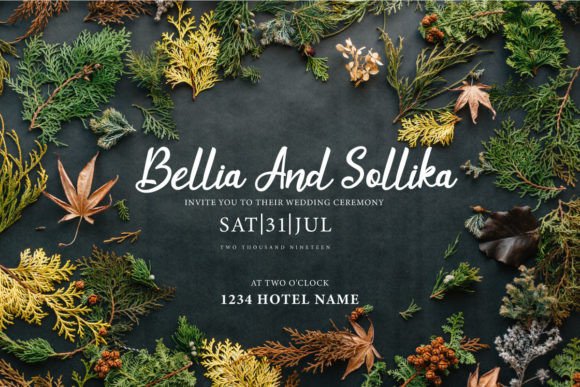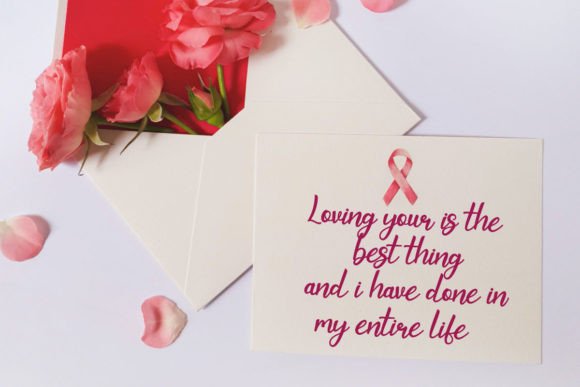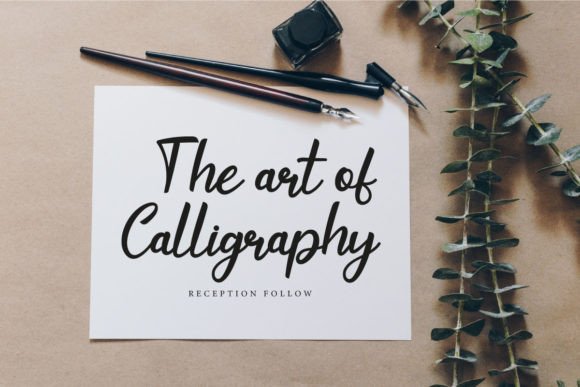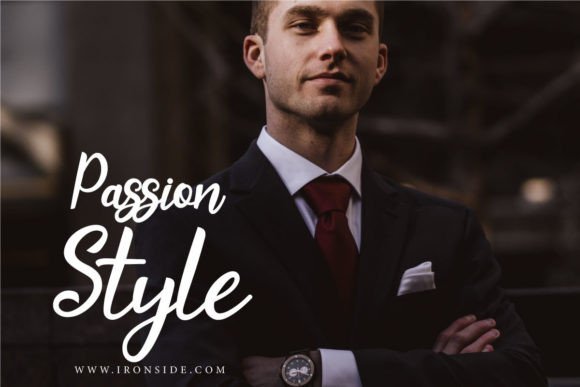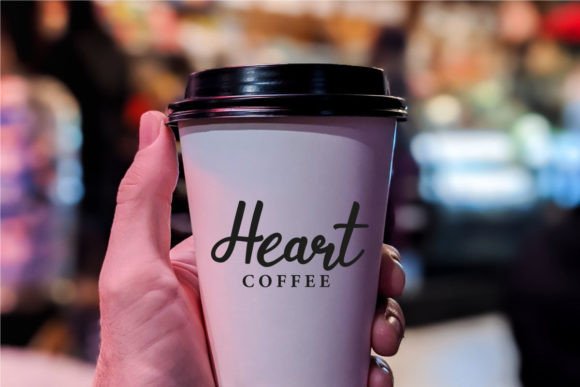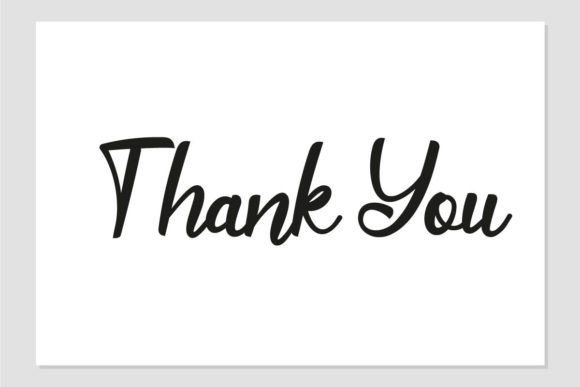
The Perfect Font for Creative Projects: A Deep Dive into Father Font
I’ll never forget the time I was working on a wedding invitation project, and my client asked for a font that was both elegant and playful. I scoured the internet, trying out font after font, but nothing seemed quite right. That was until I stumbled upon Father Font, a beautiful handwritten font that exceeded my client’s expectations and mine. In this article, I’ll share my experience with Father Font, its features, and how to make the most of it in your creative projects.
An Honest Review of Father Font
- ✨ Unique and Elegant Design: Father Font has a distinctive, handcrafted feel that’s perfect for making a statement in any design project.
- ✅ Versatility: This font can be used for a wide range of projects, from wall displays and wedding invitations to social media posts and product packaging.
- 💫 Easy to Read: Despite its elegant design, Father Font remains highly legible, even at smaller font sizes.
- 🤔 Limited Use in Body Text: While Father Font is stunning for headings and titles, it may not be the best choice for lengthy body text due to its decorative nature.
- ⚠️ Requires Attention to Kerning: As with any handwritten font, some letters may require manual kerning adjustments to achieve optimal spacing and readability.
The Backstory of Father Font
Father Font was designed with love and care by a typographer who aimed to create a font that feels both personal and sophisticated. Inspired by classic calligraphy and modern handwriting, Father Font brings a touch of warmth and elegance to any project. While the actual designer remains a mystery, their passion for typography shines through in every detail of this beautiful font.
| Font Name | Father Font |
| Author | Arief Indra Pratama |
| What makes Father Font unique? | Father Font’s unique blend of elegance and playfulness, along with its highly legible design, sets it apart from other fonts. |
| Is Father Font suitable for body text? | While Father Font is stunning for titles and headings, it’s recommended to use a more readable font for lengthy body text. |